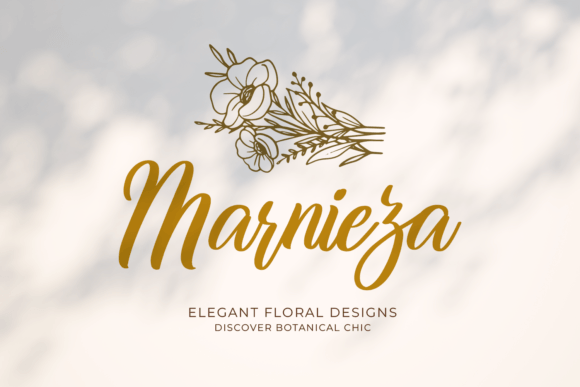
Christina Font
Introducing “Christina,” a beautifully crafted script handwritten font, perfect for adding a touch of elegance and charm to your special projects. Designed with the delicate flow and grace ideal for wedding invitations, birthdays, and festive celebrations like Christmas, New Year, and Easter, Christina brings a warm and personal feel to every word.
This font is not just a script; it’s a creative toolkit. Each character comes with beginning and ending swashes, giving your text a stylish, flowing look that feels effortlessly graceful. Whether you’re crafting holiday cards, designing custom lettering for Cricut projects, or adding a personal touch to embroidery, Christina has you covered.
Christina’s timeless elegance and adaptability make it a must-have for any designer. It captures the essence of celebration and creativity, making every project feel special. Whether you’re working on a professional project or a personal craft, Christina is the perfect companion to bring your ideas to life.